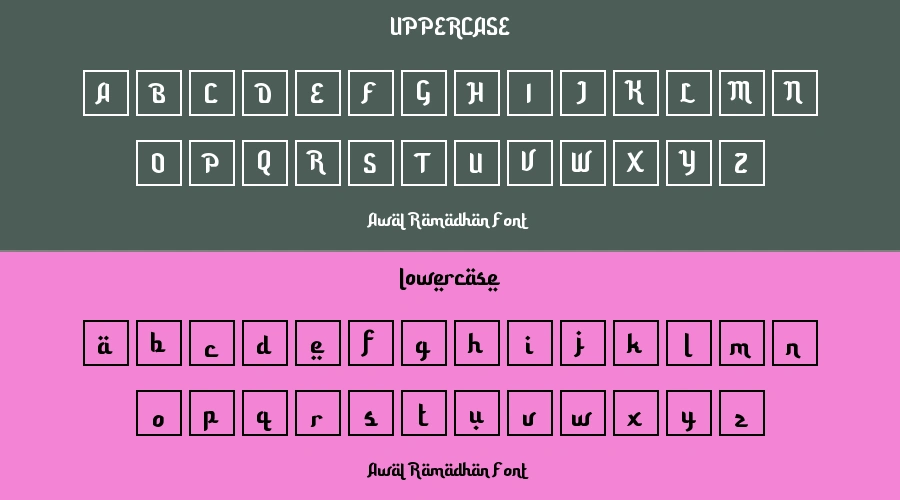
About Awal Ramadhan Font
Designed with precision, Awal Ramadhan Font merges expressive curves with optical adjustments in every character. This versatility makes it particularly effective for branding projects, where distinctiveness and design innovation directly impact communication quality. Each letterform demonstrates meticulous craftsmanship.
Technical excellence shines through elements like elegant proportions and proportional figures, enhancing typographic versatility. In section headers settings, Awal Ramadhan Font proves its worth through superior weight distribution. The thoughtful execution of counter size and design philosophy ensures professional results.